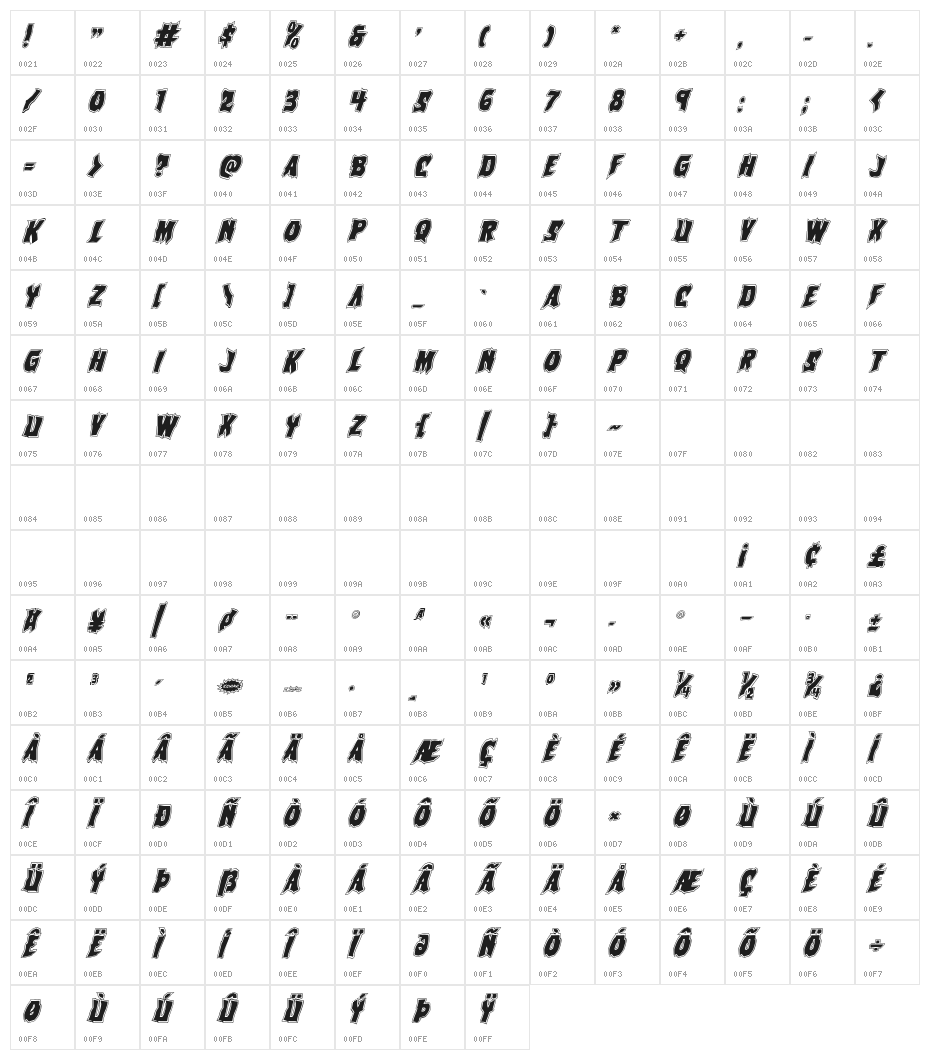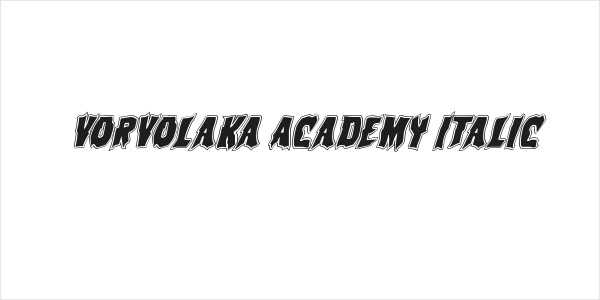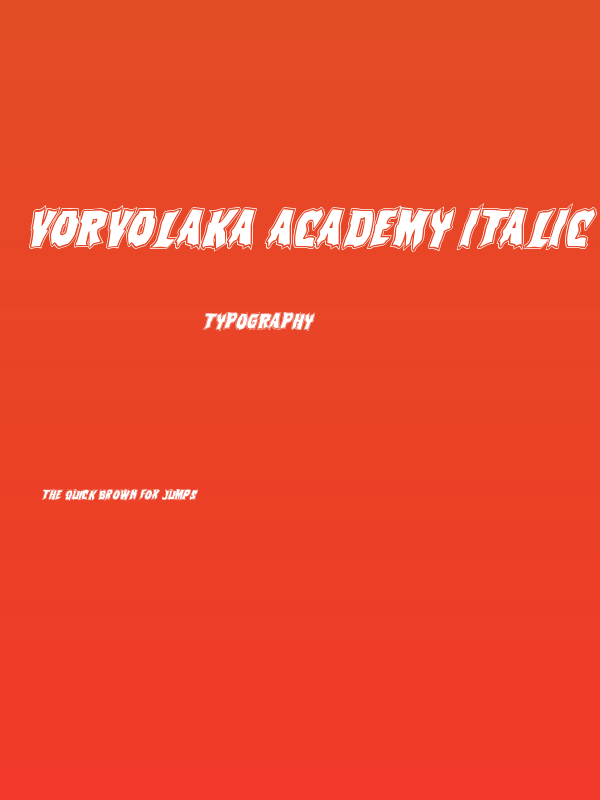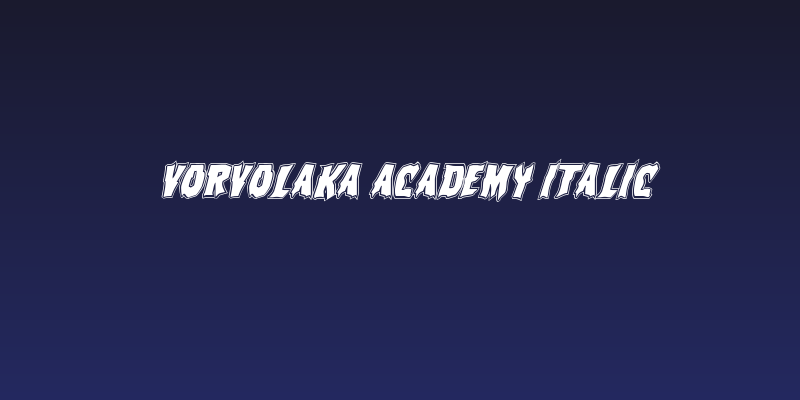
Vorvolaka Academy Italic Font
Vorvolaka Academy Italic Description
This font features a bold and dynamic style with sharp, angular edges and a slightly italicized slant. The characters are heavily stylized, giving them a dramatic and energetic appearance. The uppercase and lowercase letters maintain a consistent design, with thick strokes and pointed serifs that enhance the font's aggressive and impactful look. Numbers and special characters follow the same design principles, ensuring uniformity across all glyphs. The font's high contrast between thick and thin strokes adds to its striking visual appeal, making it suitable for attention-grabbing designs.
| Proposed Projects | Ideal for posters, video game titles, horror-themed graphics, and edgy branding projects. |